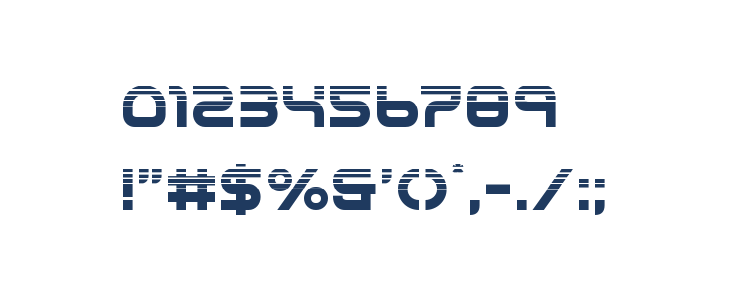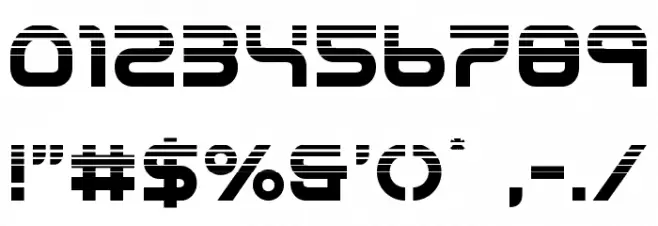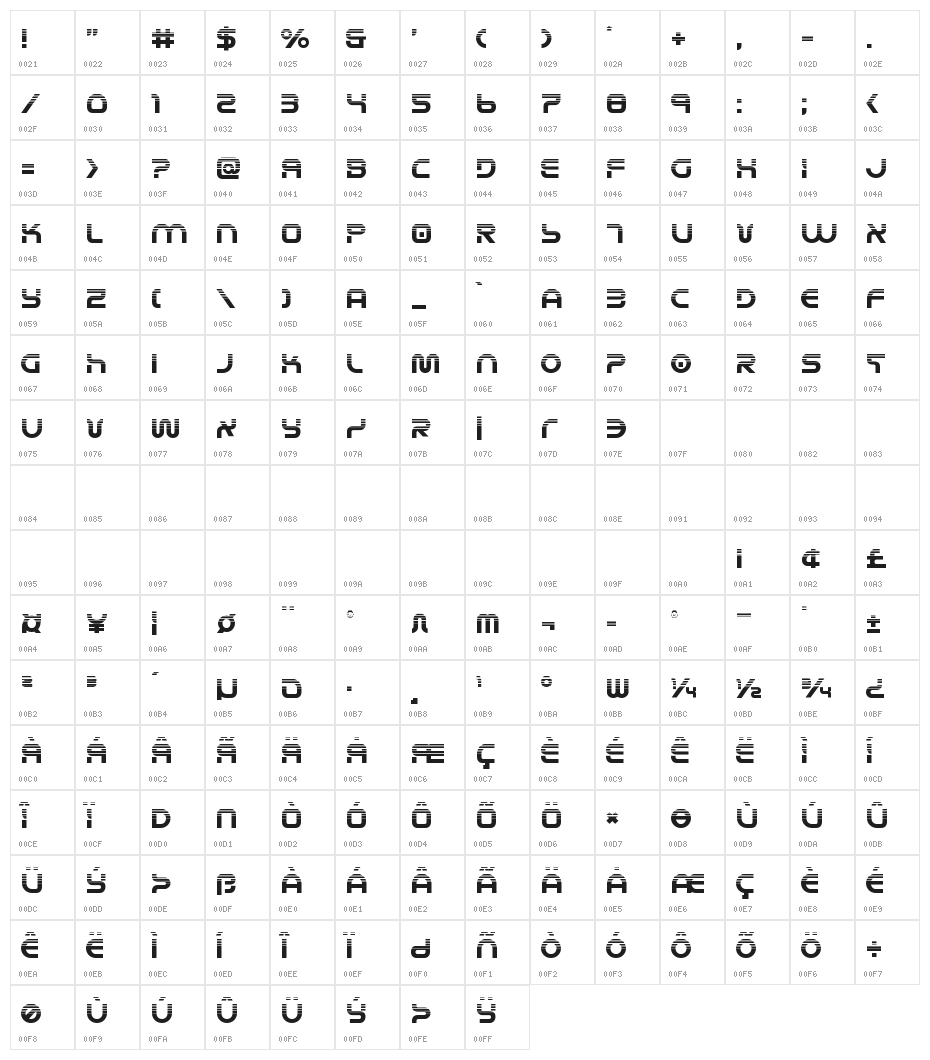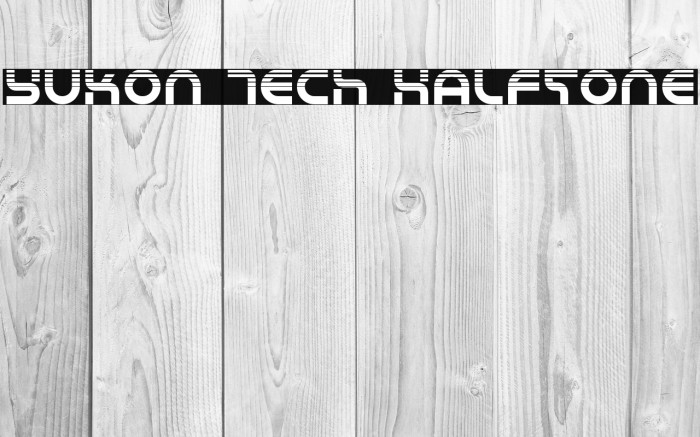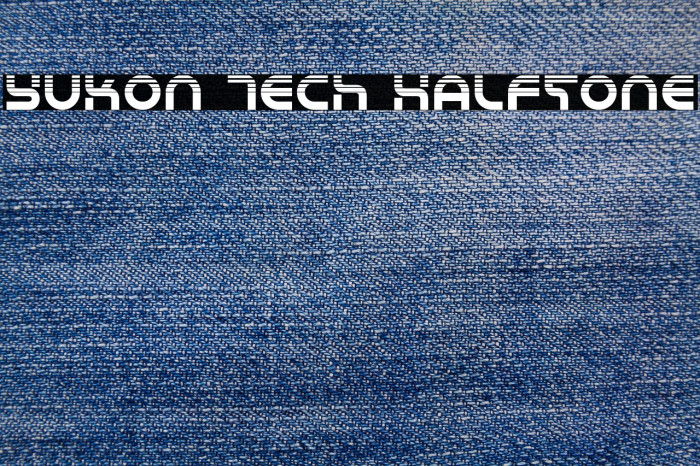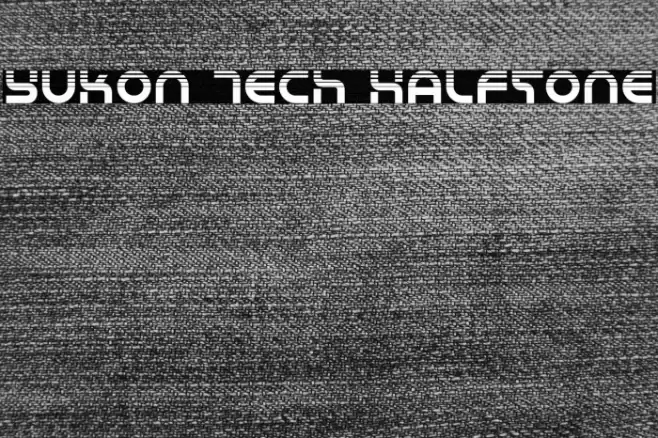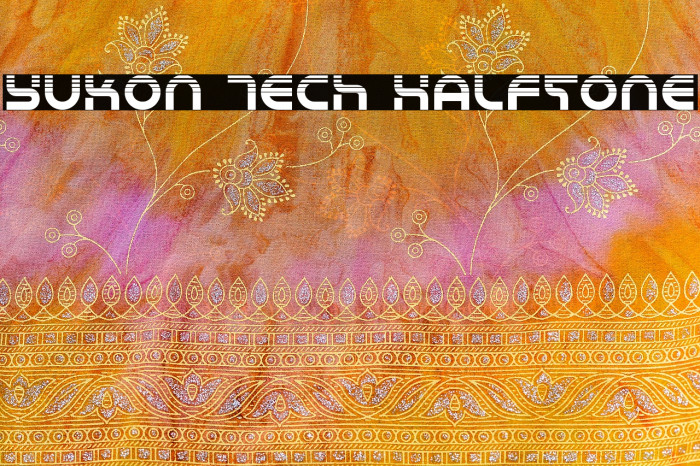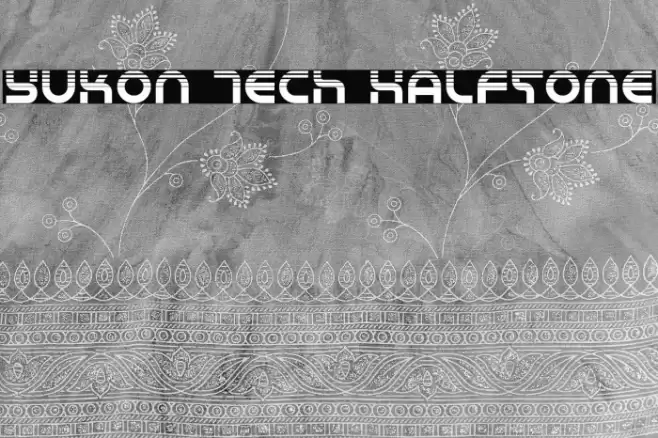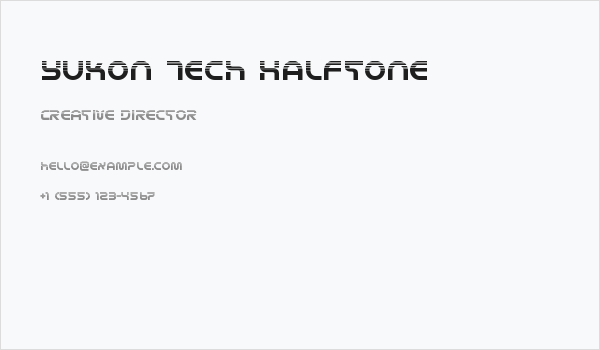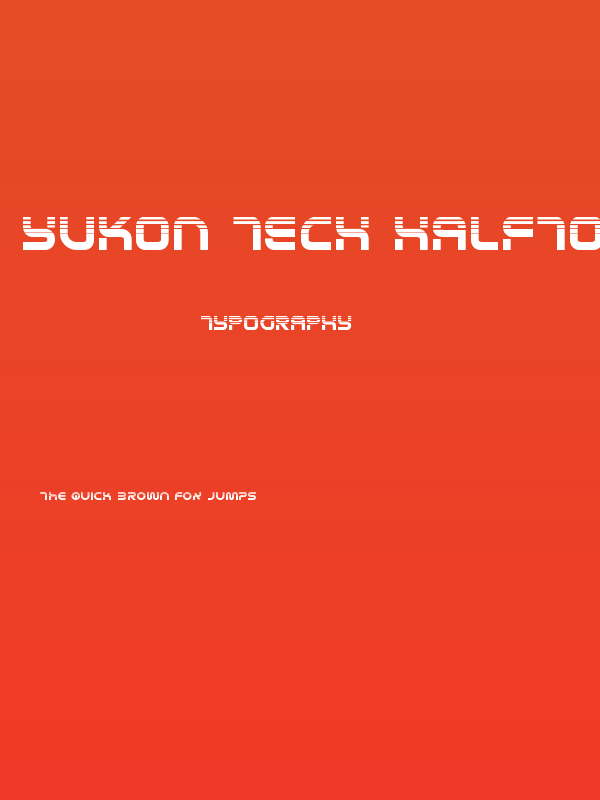
Yukon Tech Halftone Font
Yukon Tech Halftone Description
This font features a futuristic and technological design, characterized by its halftone effect that creates a sense of movement and depth. The characters are bold and geometric, with a unique pattern of horizontal lines that give it a digital and modern appearance. The uppercase and lowercase letters maintain a consistent style, with rounded edges and a uniform thickness that enhances readability. The numbers and special characters follow the same design principles, ensuring a cohesive look across all elements. This font is ideal for projects that require a contemporary and innovative touch.